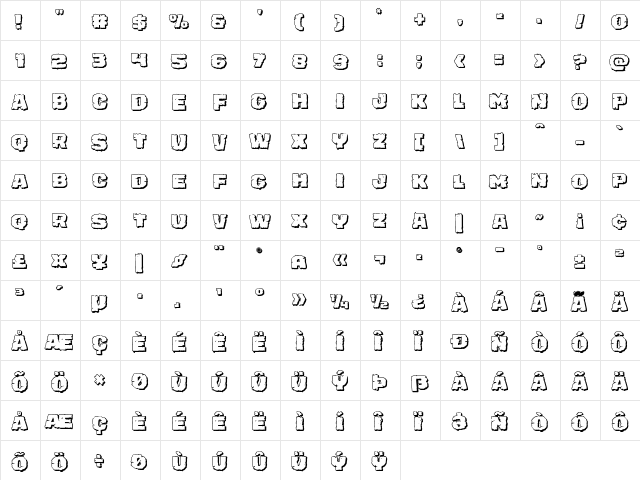
Jugger Rock Shadow Regular Font Preview
Jugger Rock Shadow Regular
Design Context for Jugger Rock Shadow Typeface
Jugger Rock Shadow is built around its visual character rather than neutral utility — its distinctive forms are designed to make an impression at display sizes.
Font Pairing: Pair with a clean neutral sans-serif for body copy to let Jugger Rock Shadow's character lead without overwhelming the composition.
Pro Tip: Treat Jugger Rock Shadow as the centrepiece of your typographic hierarchy. One strong heading set in a decorative face can carry an entire layout.